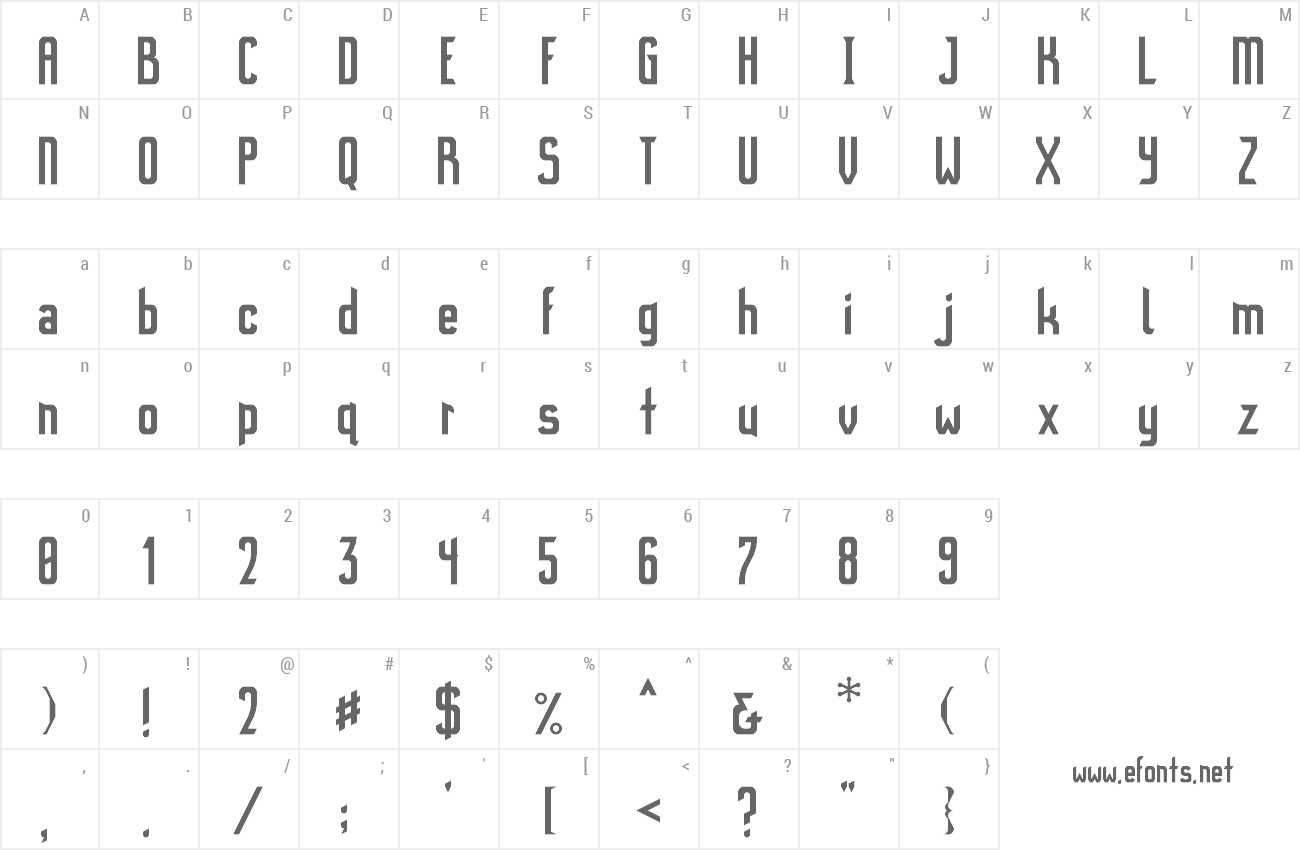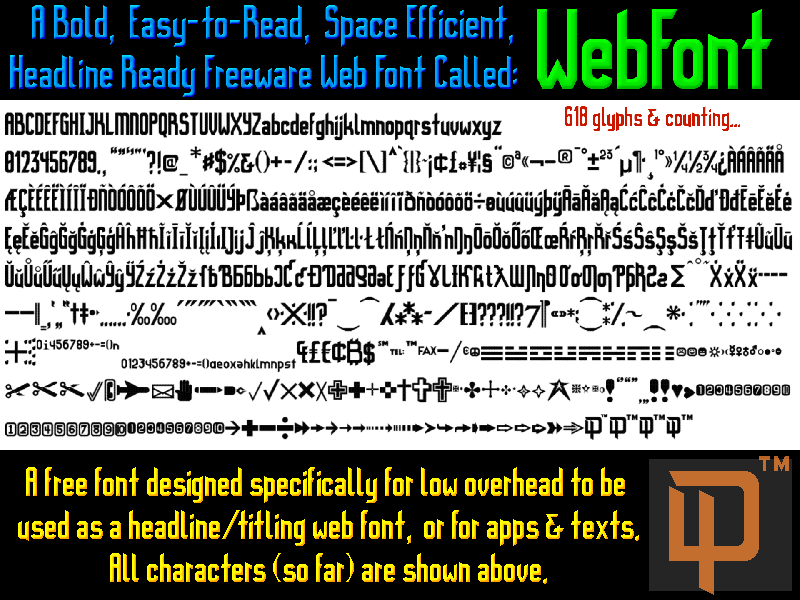
Preview and download WebFont Font. Created by Doug Peters in Basic Various styles with Public domain / GPL / OFL license.
| WebFont is a bold sans font meant for headlines, but highly legible as content. Characters have a smaller, condensed footprint when possible. Most lowercase characters have goth cuts. 618 Glyphs with some UI elements. Modular design, TrueType format. Commercial (and personal) use is fine. Derivatives authorized. |